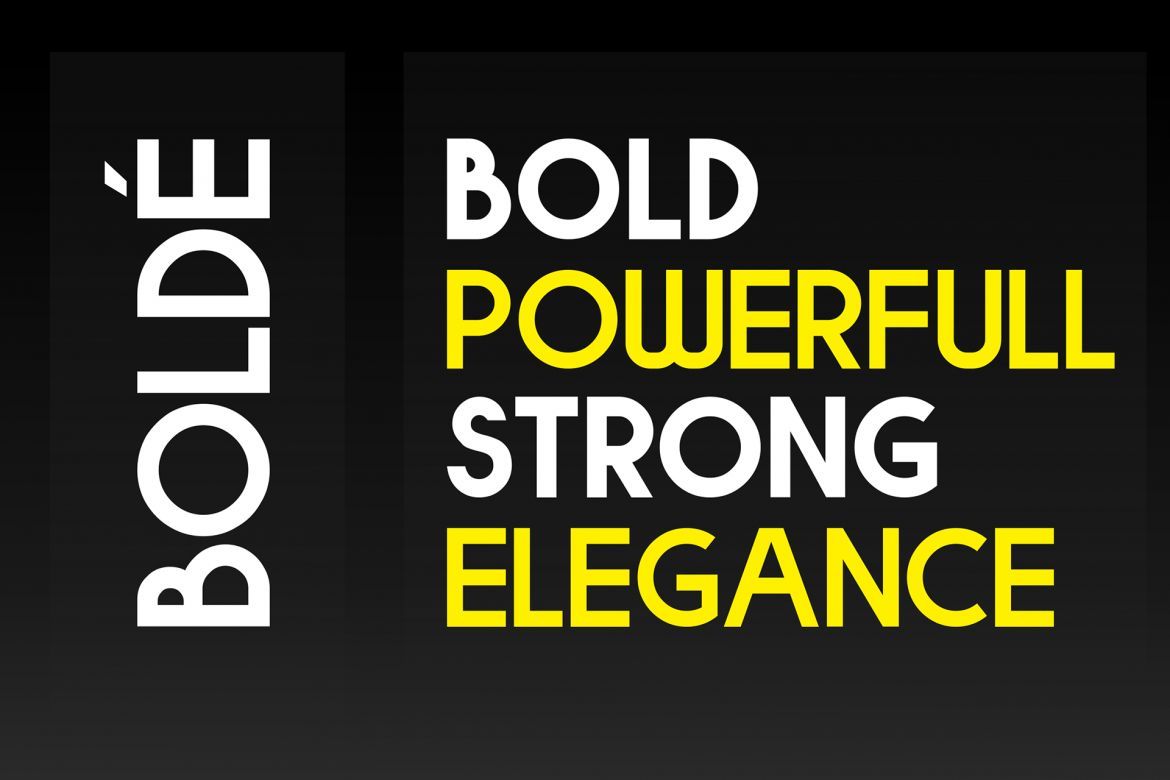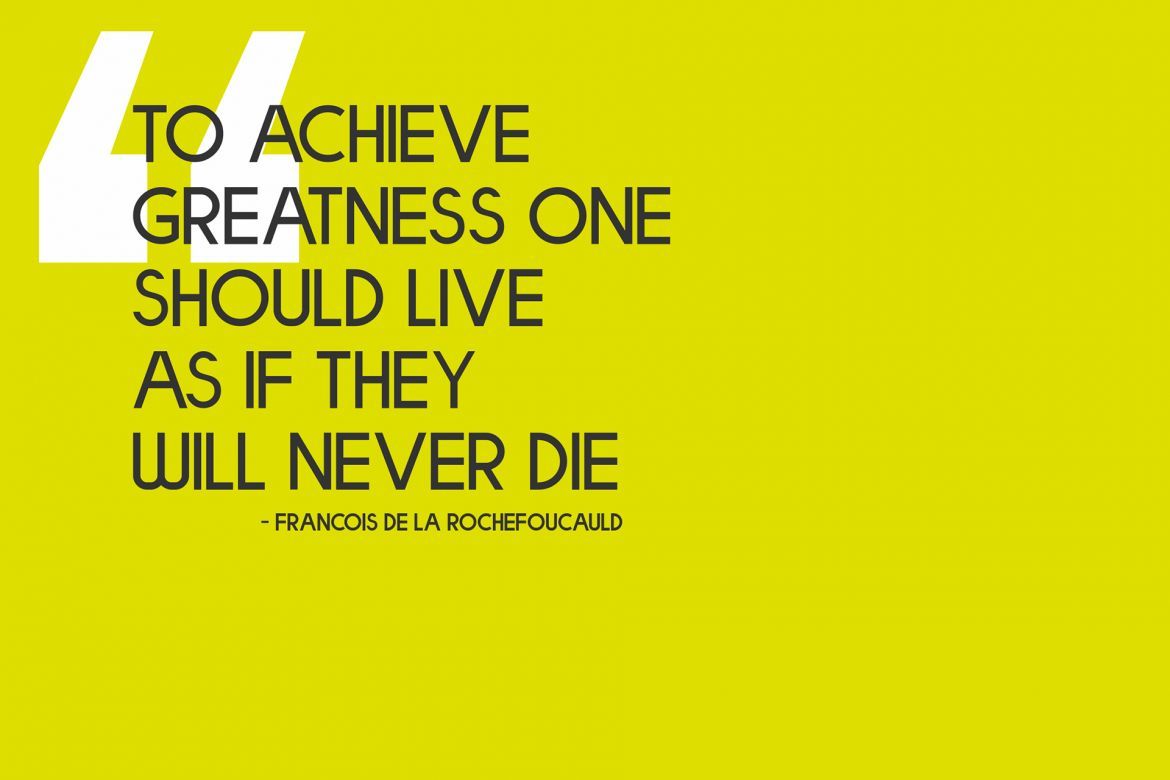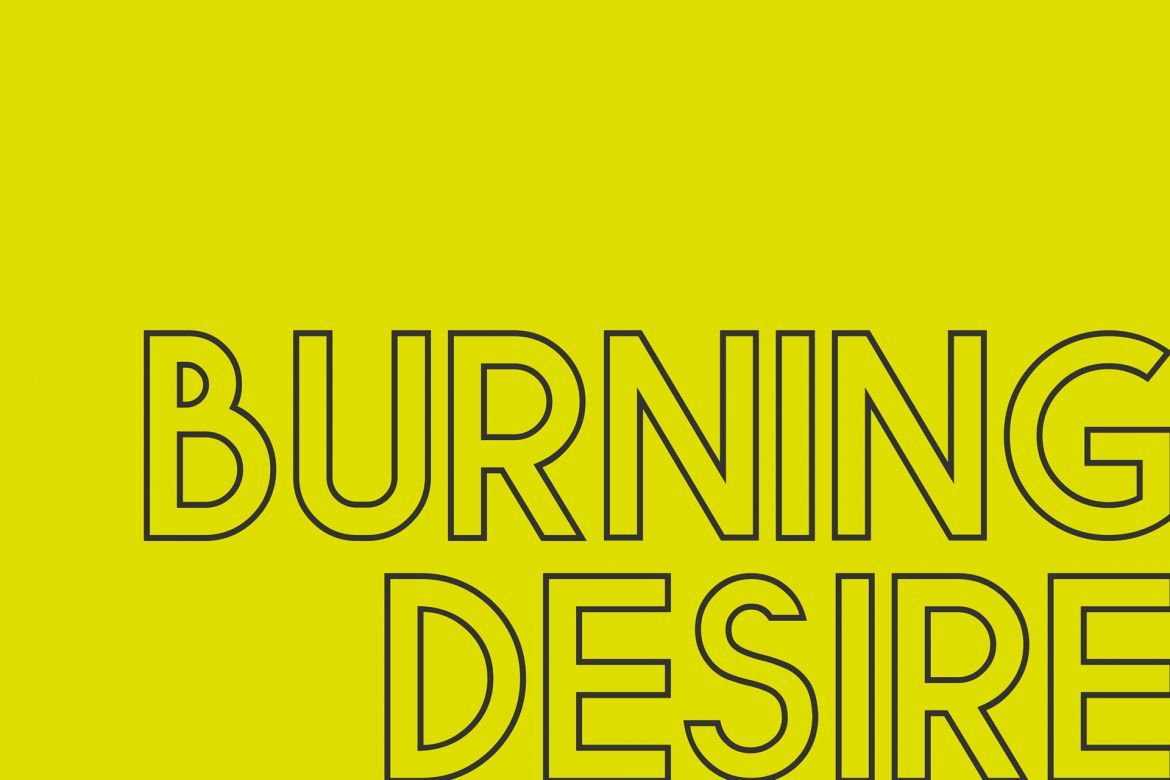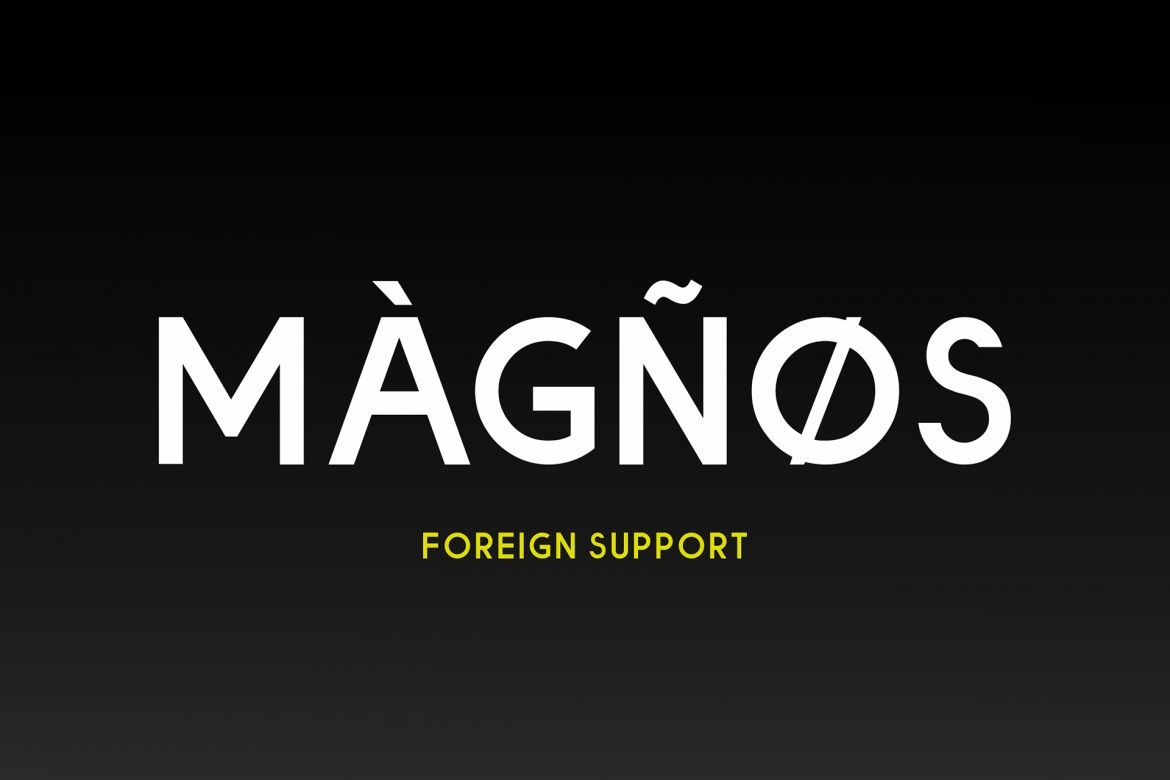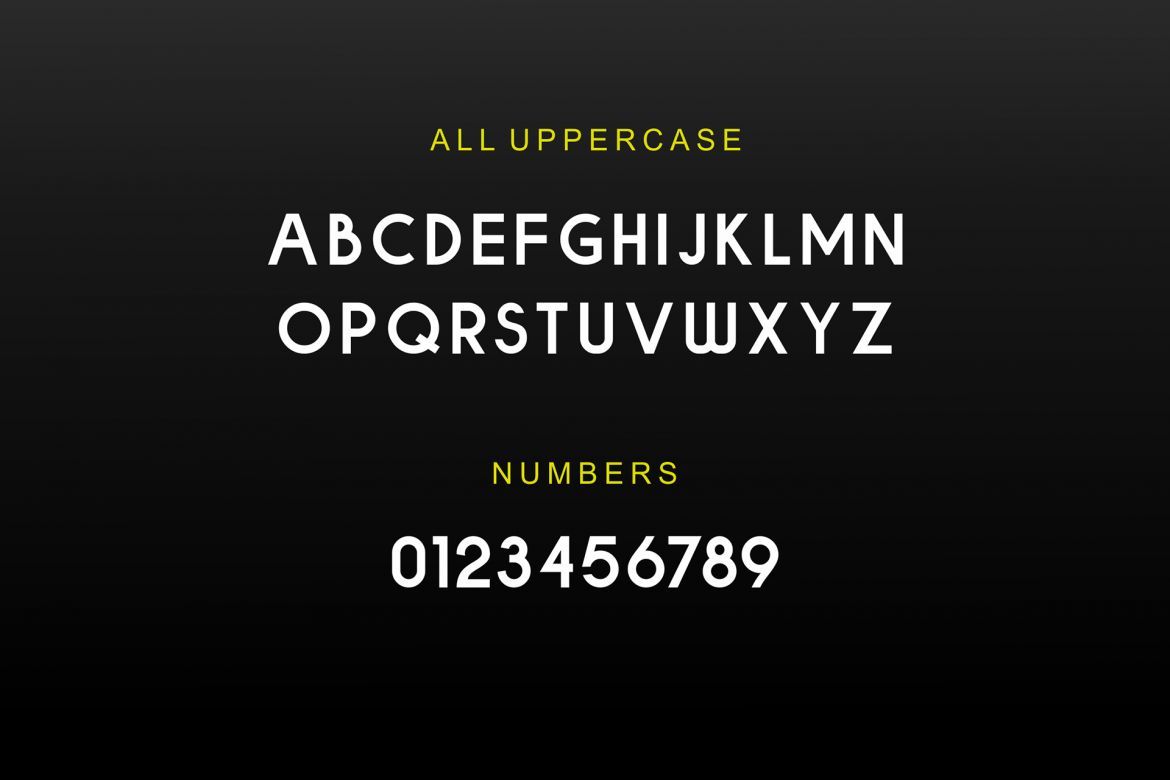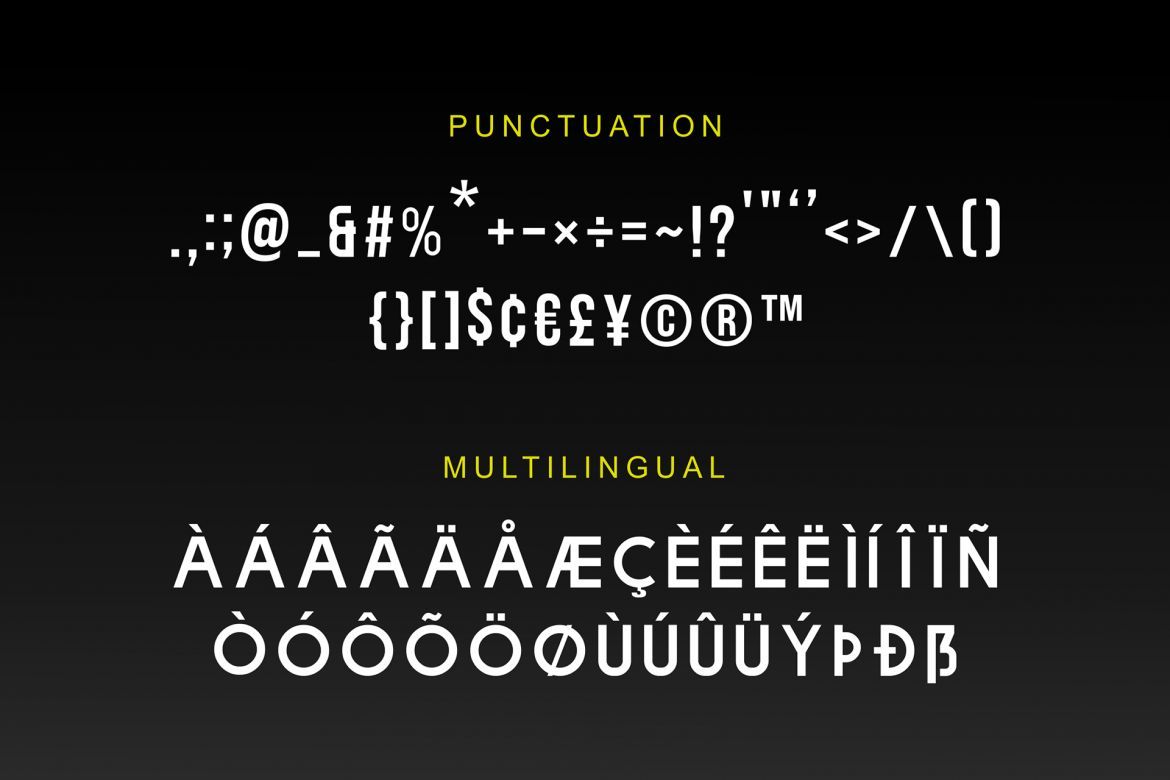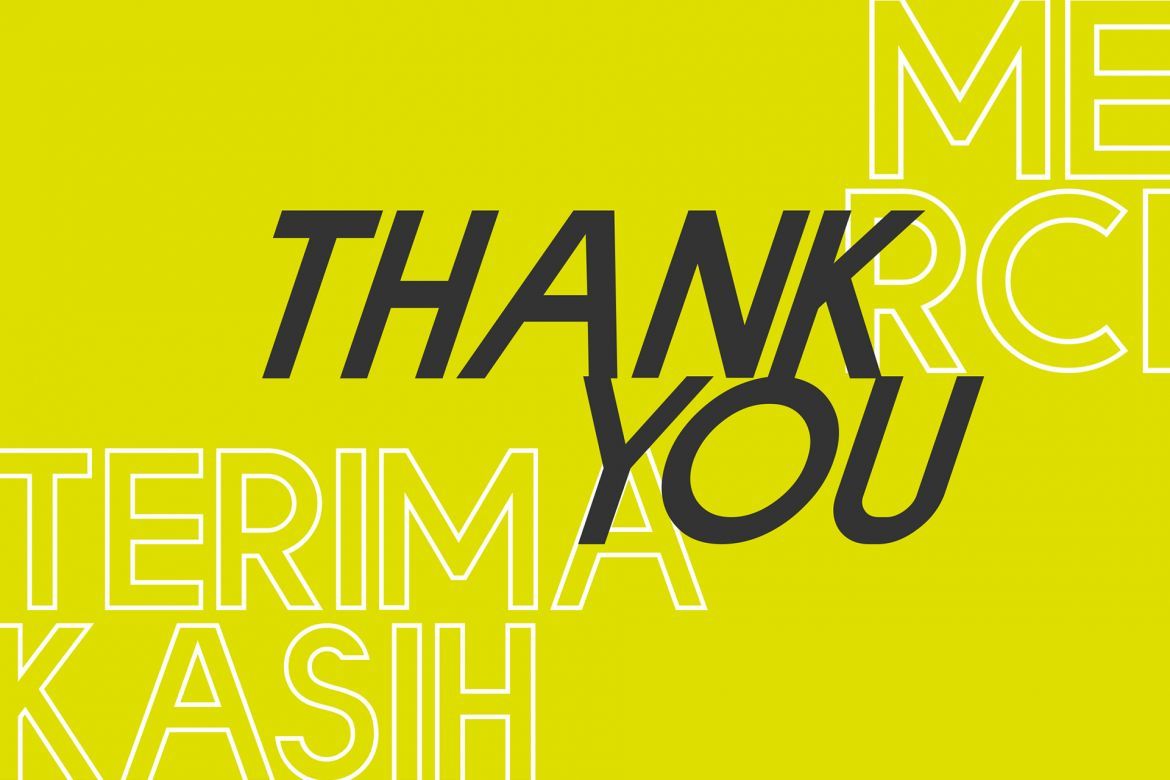
Bolde Font Family
Bolde is a powerfull sans serif font family with modern touches. A balance of hard lines and smooth curve makes them able to stand on their own dynamically
Bolde includes five all-caps fonts
• Bolde Regular
• Bolde Bold
• Bolde Italic
• Bolde Light
• Bolde Hollow
Features : five all caps font, Numbers & Punctuation / Extensive Language Support Bolde works great in any branding, logos, magazines, films. The different styles give you full range to explore a whole host of applications.
• five all caps font, numbers & punctuation / extensive language support bolde works great in any branding, logos, magazines, films.
• includes five all-caps fonts : bolde regular, bolde bold, bolde italic, bolde light, bolde hollow